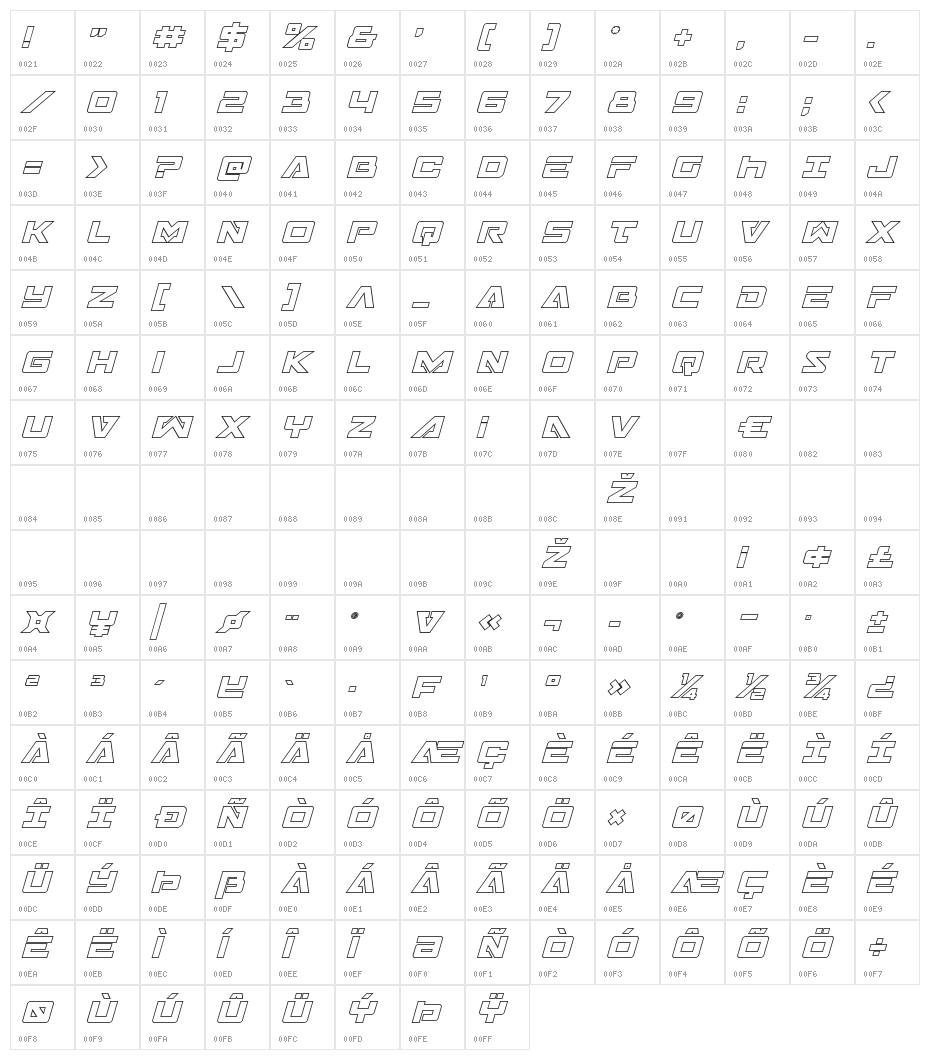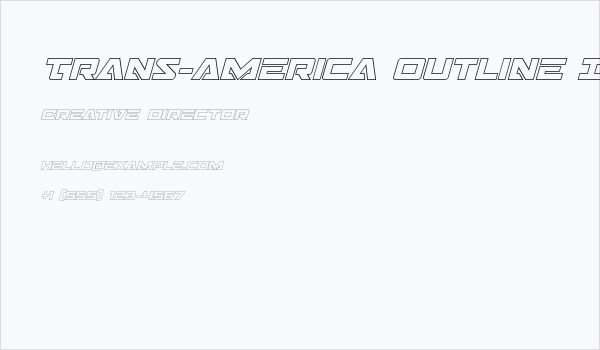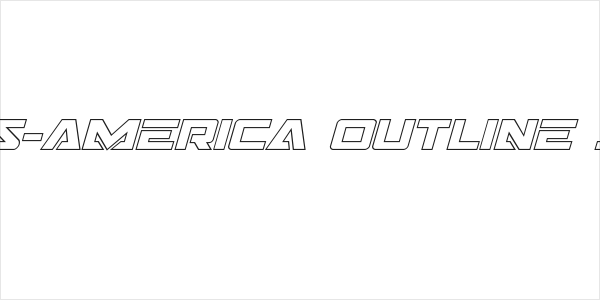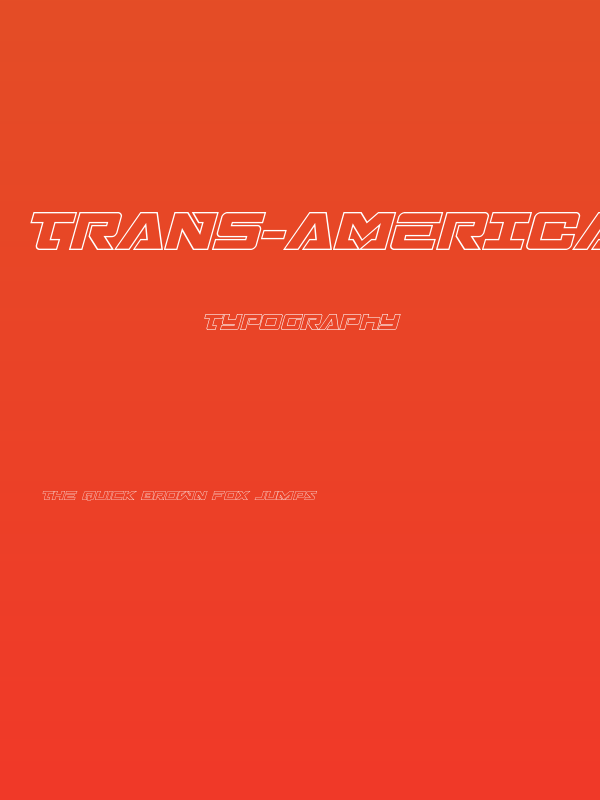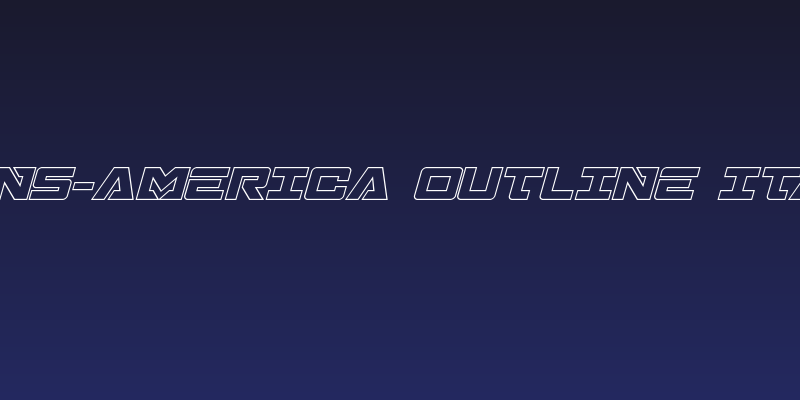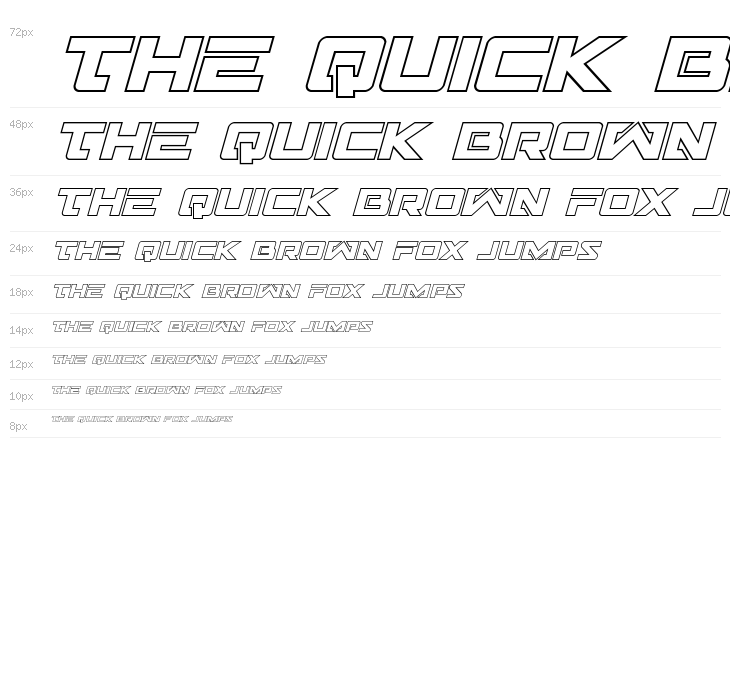
Trans-America Outline Italic Font
Trans-America Outline Italic Description
This font features a bold, geometric outline style with an italic slant, giving it a dynamic and futuristic appearance. The characters are constructed with sharp angles and clean lines, creating a sense of movement and speed. The uppercase and lowercase letters maintain a consistent design, with a slight variation in size and proportion. The numerals and special characters follow the same stylistic approach, ensuring uniformity across all glyphs. The outline effect adds a layer of depth, making the text stand out against various backgrounds. This font is ideal for projects that require a modern and edgy look.
| Proposed Projects | Ideal for branding, sports team logos, futuristic posters, and tech-related designs. |